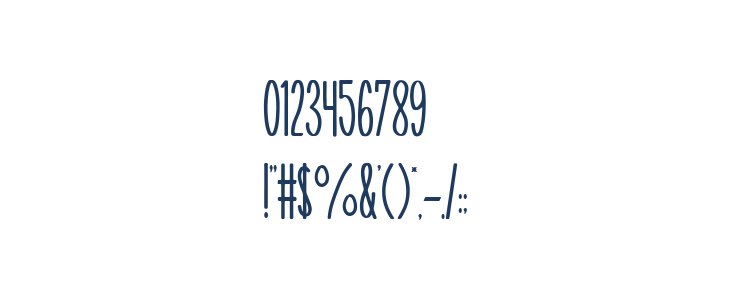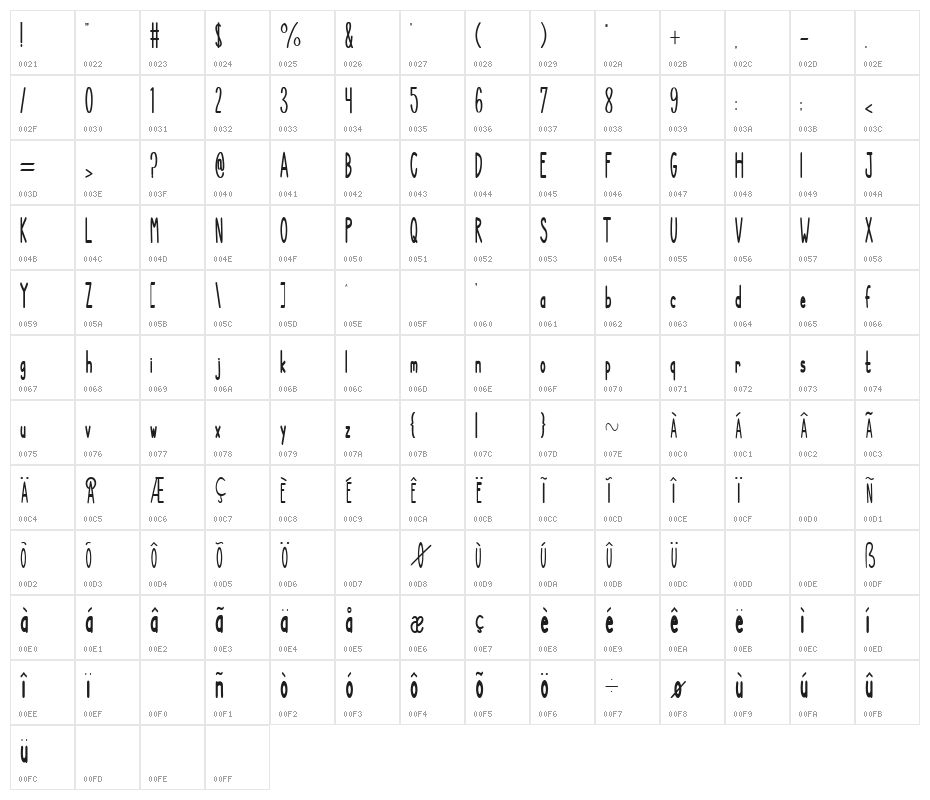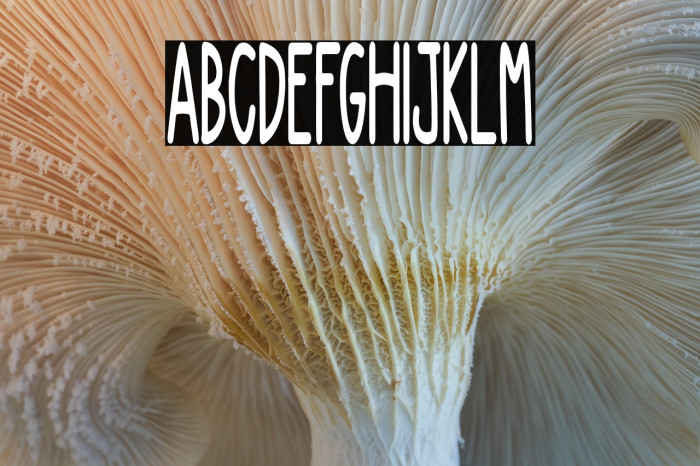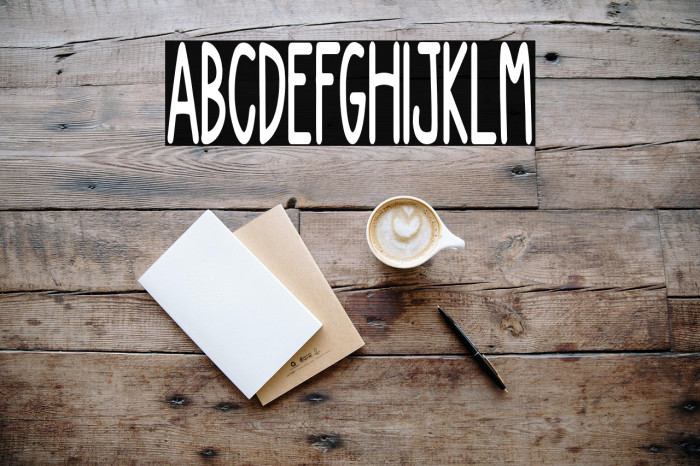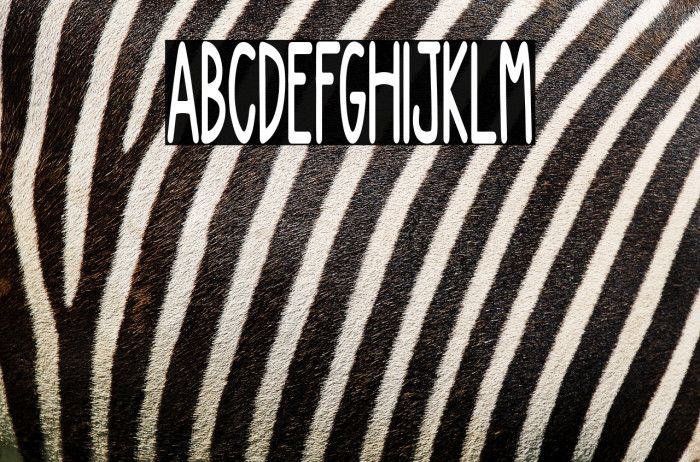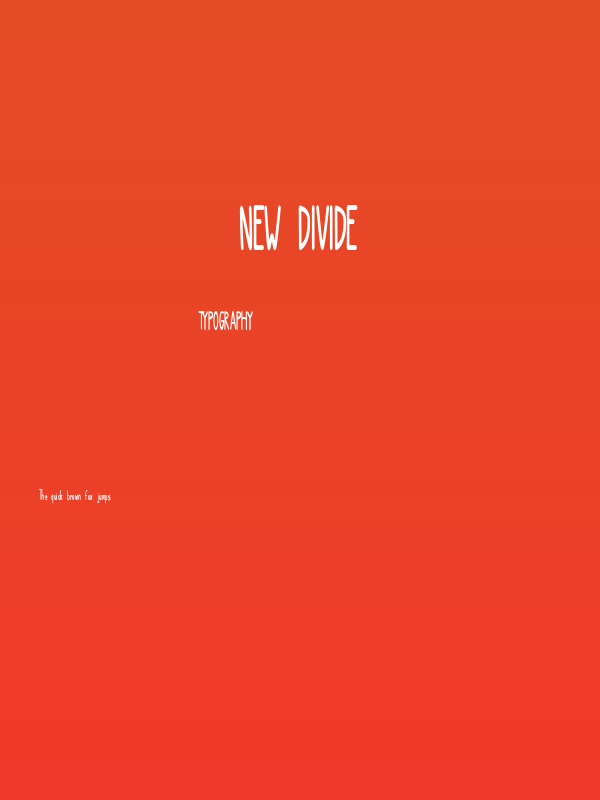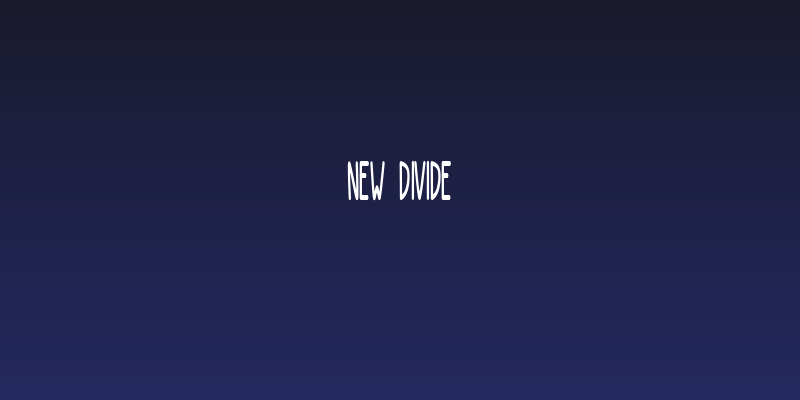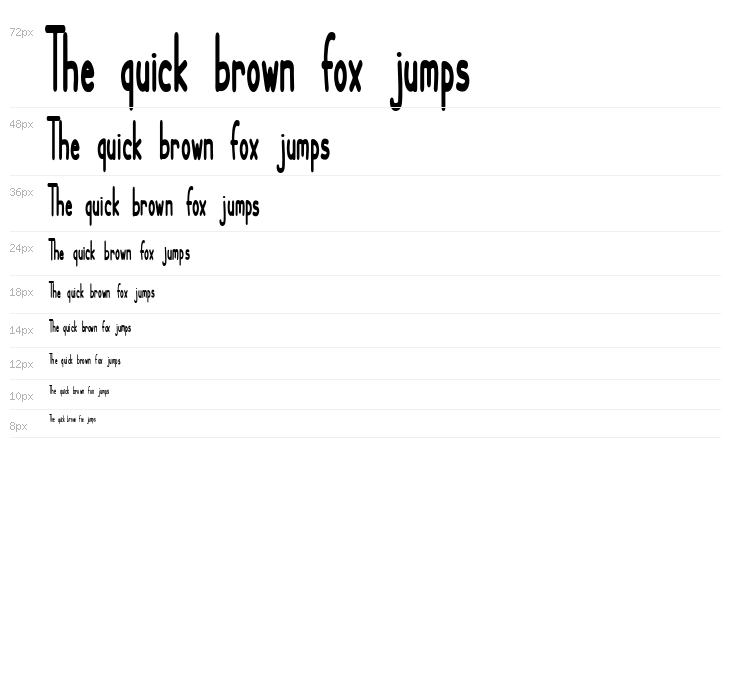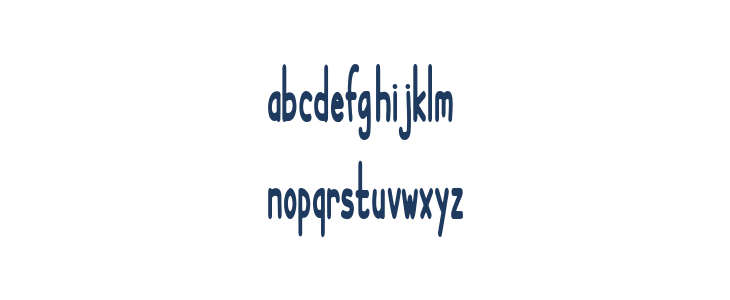
NEW DIVIDE Font
NEW DIVIDE Description
This font features a playful and informal style with rounded edges and a slightly condensed appearance. The characters are tall and narrow, giving it a unique and quirky look. The uppercase and lowercase letters maintain a consistent style, with a smooth flow and minimal contrast in stroke thickness. The numbers and special characters are designed to match the overall aesthetic, making it suitable for creative and casual projects. The font's distinct personality makes it stand out, while its legibility ensures it remains functional.
| Proposed Projects | Ideal for children's books, greeting cards, posters, and playful branding. |